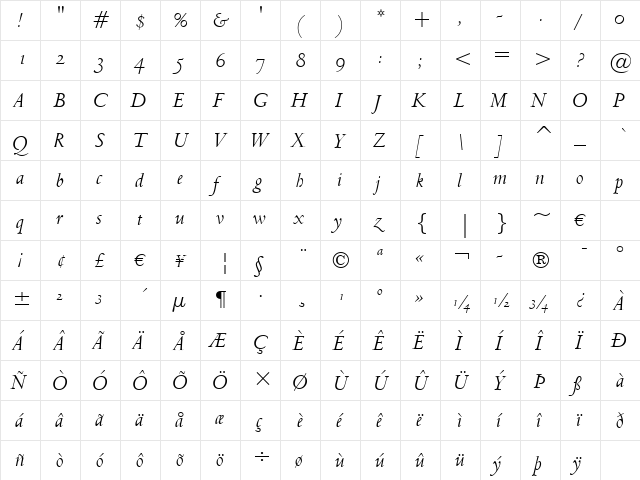
Venetian301 BT Italic Font Preview
Venetian301 BT Italic
Venetian301 BT Italic Font Details
Design Context for Venetian301 BT Typeface
Venetian301 BT offers clean, dependable letterforms without strong stylistic allegiance, making it a practical choice for designers who need flexibility. The slanted form adds forward momentum and visual energy.